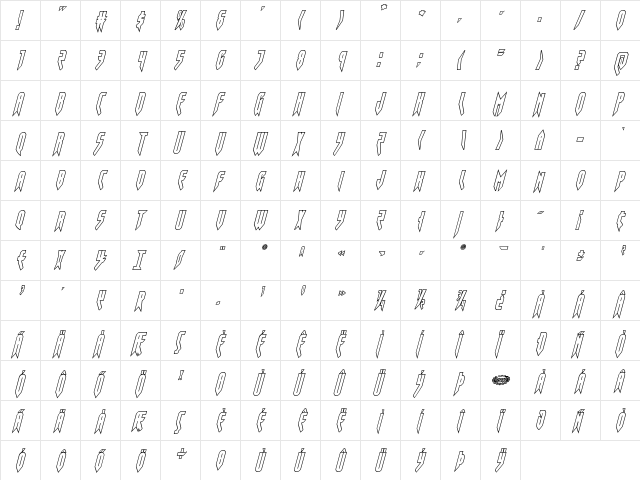
Opus Magnus Outline Condensed Italic Font Preview
Design Context for Opus Magnus Outline Condensed Italic Typeface
Opus Magnus Outline Condensed Italic brings ornamental detail and strong personality to headlines and identities, where visual impact matters more than quiet functionality. Its italic angle brings a sense of urgency and motion to the letterforms.
Font Pairing: Pair with a clean neutral sans-serif for body copy to let Opus Magnus Outline Condensed Italic's character lead without overwhelming the composition.
Pro Tip: Use Opus Magnus Outline Condensed Italic exclusively at display sizes — it was designed to be seen, not read at length. Let a neutral companion handle body copy.